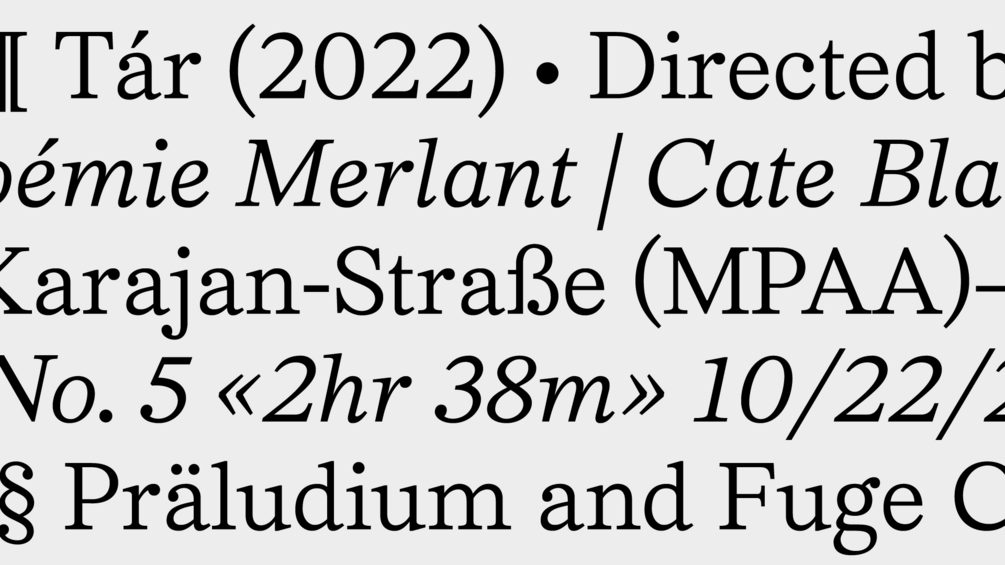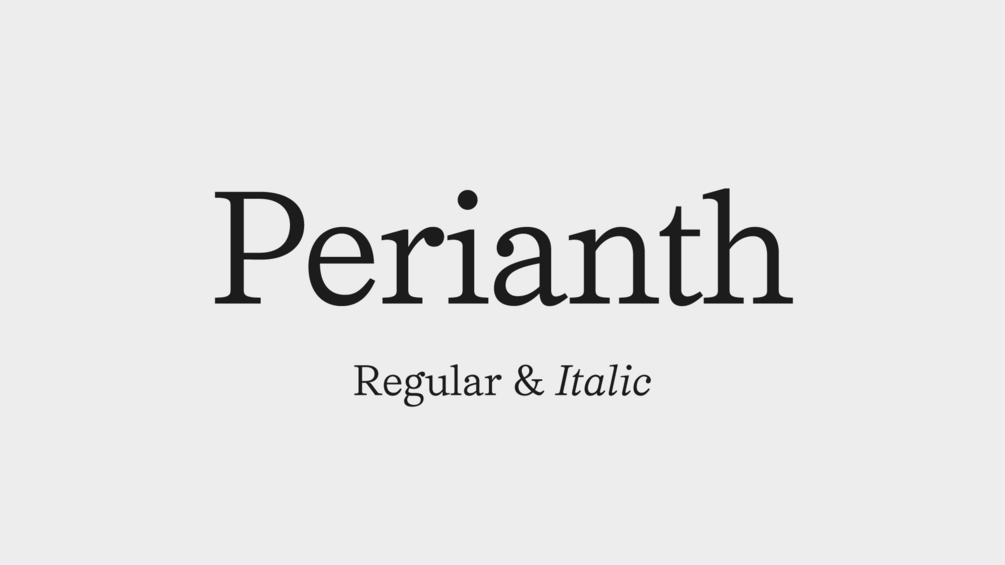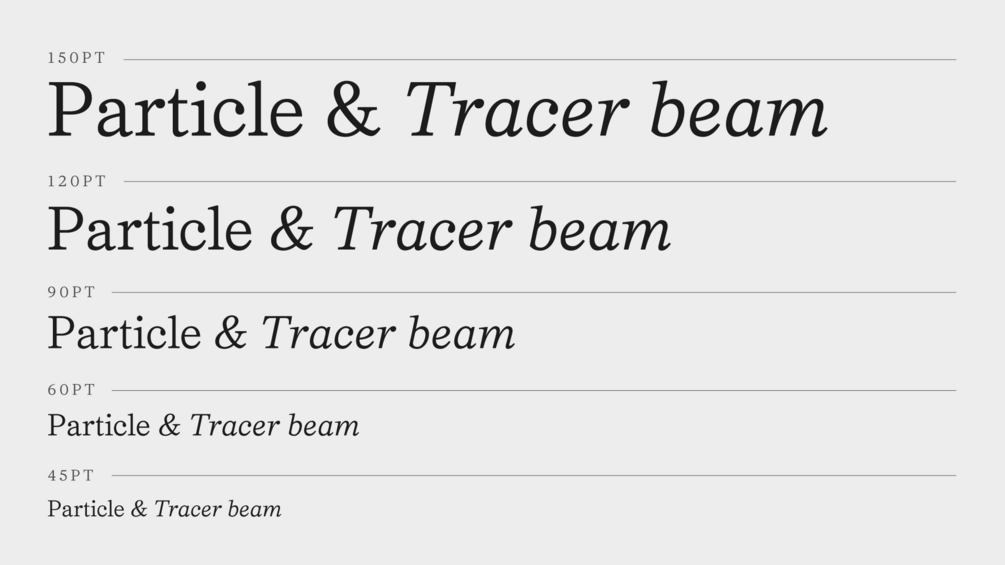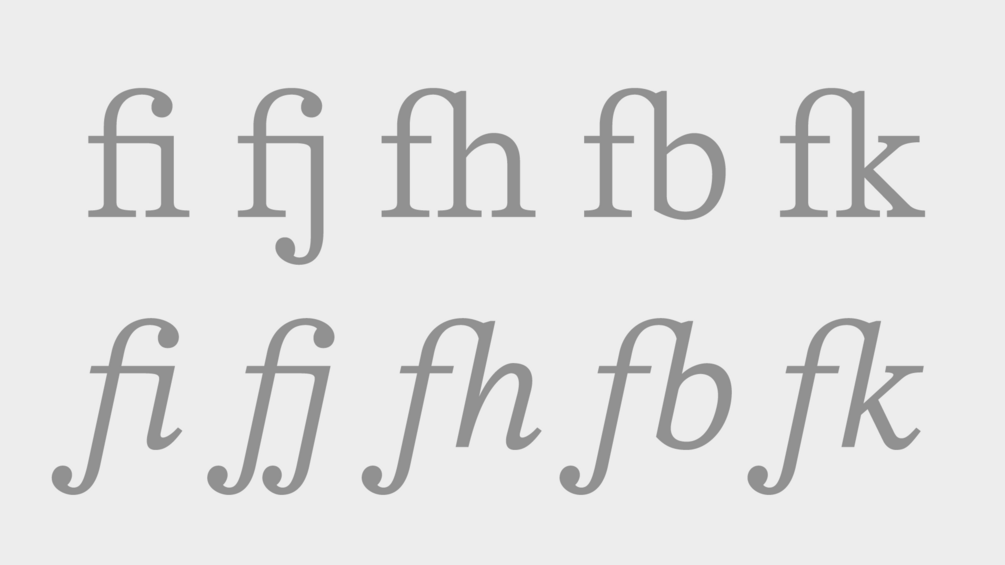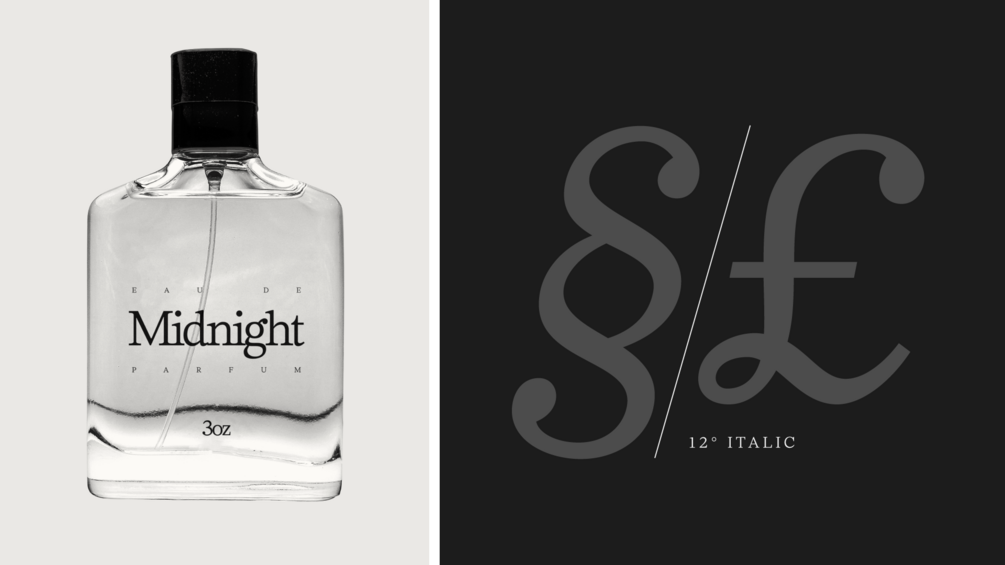
POI Perianth
Add a classic look to your design with this transitional serif. Coming in two styles, regular and italic, Perianth is a great choice for your next project. Try out the complete character set and opentype features for free before you buy!